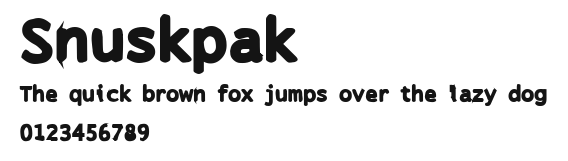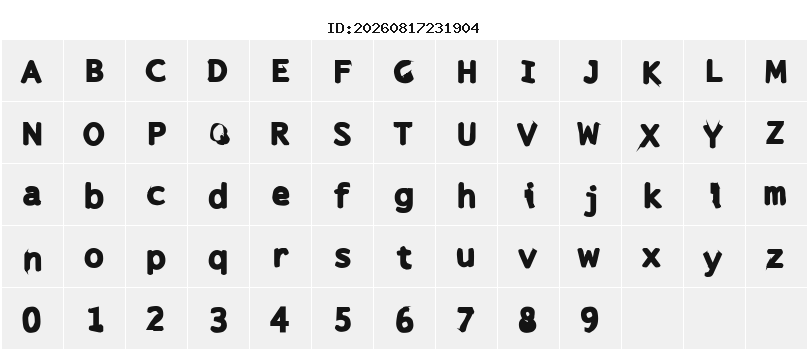
Snuskpak Preview
About Snuskpak.ttf
Snuskpak.ttf is a modern, elegant sans-serif font designed for ultimate readability and visual harmony. Perfect for branding, headlines, web design, and print materials.